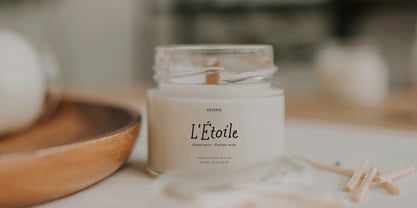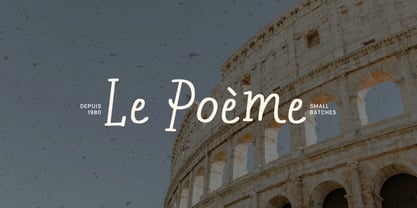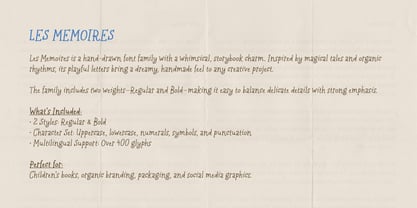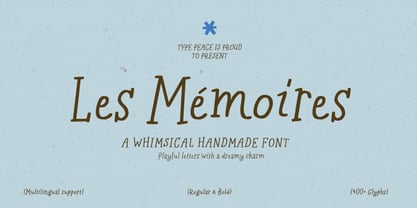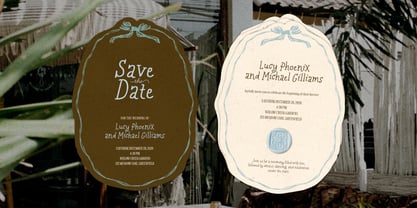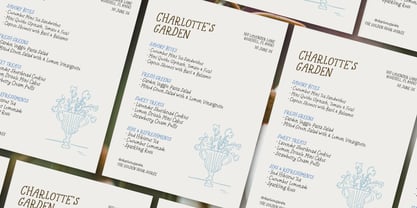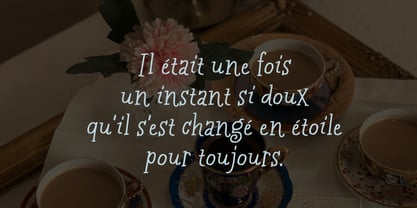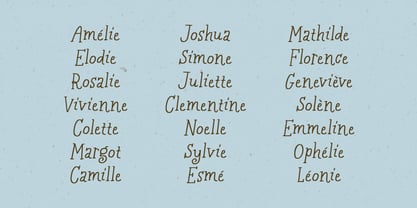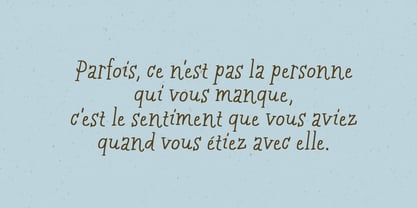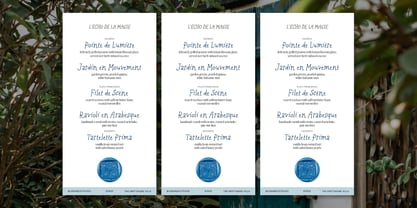
Les Memoires
by type peace
The Les Memoires Font Family was designed by Hai Anh Nguyen and published by type peace. Les Memoires contains 2 styles and family package options. More about this family
Les Memoires is a hand-drawn font family with a whimsical, storybook charm. Inspired by magical tales and organic rhythms, its playful letters bring a dreamy, handmade feel to any creative project. The family includes two weights (Regular and Bold) making it easy to balance delicate details with strong emphasis. Perfect for: Children’s books, organic branding, packaging, and social media graphics.
Designers: Hai Anh Nguyen
Foundry: type peace